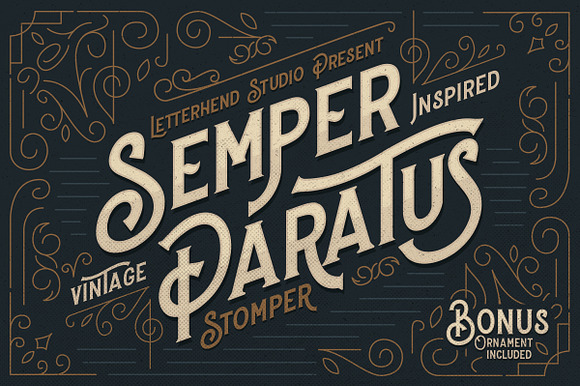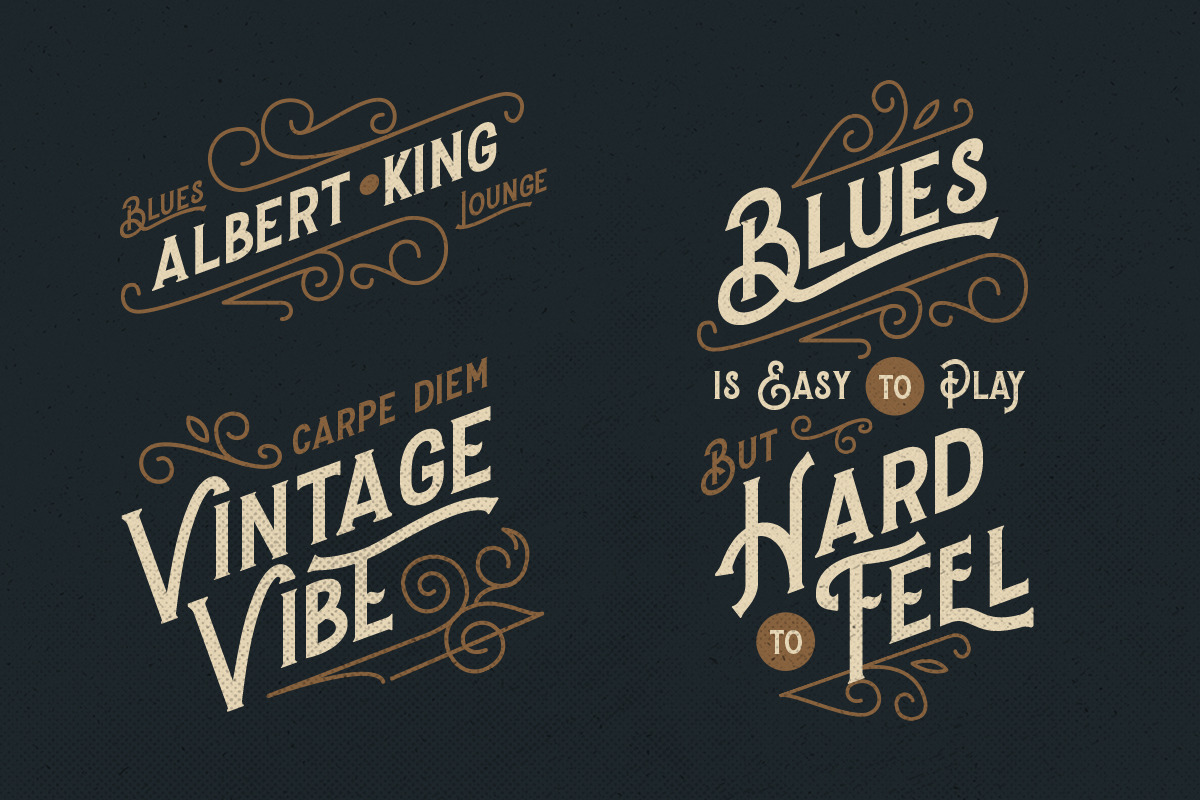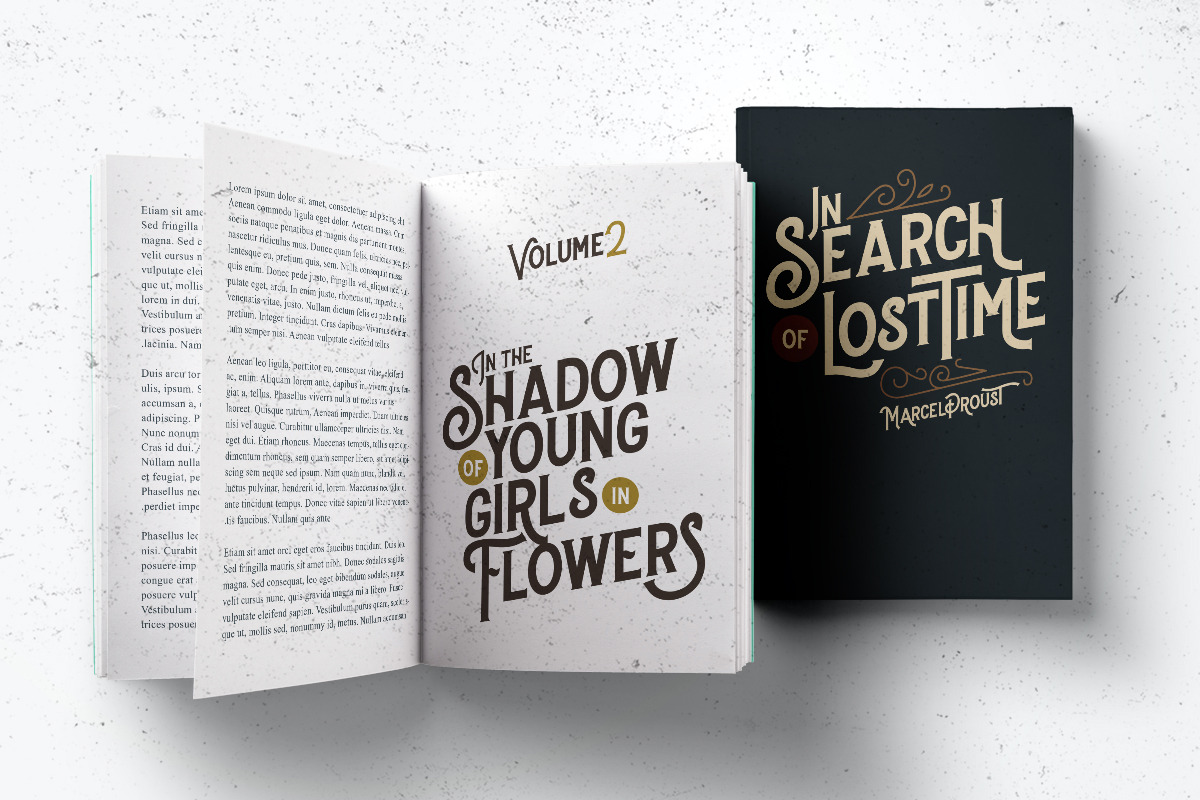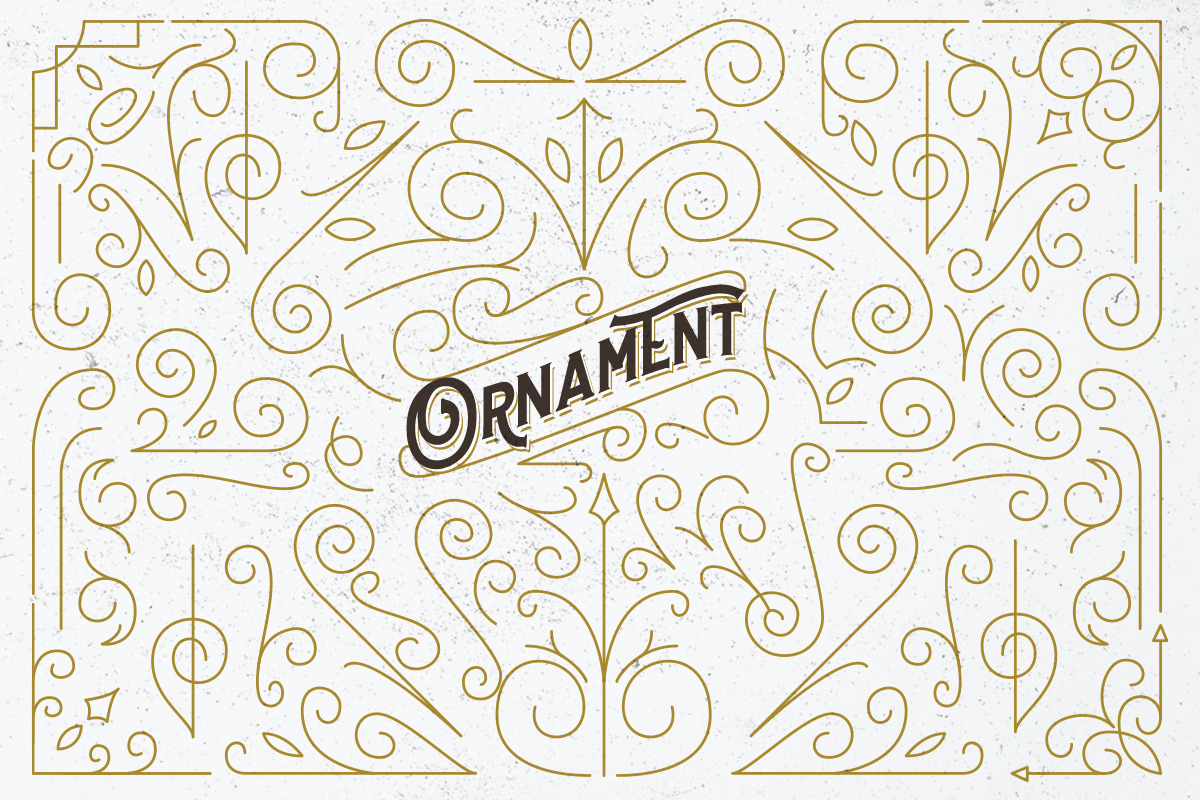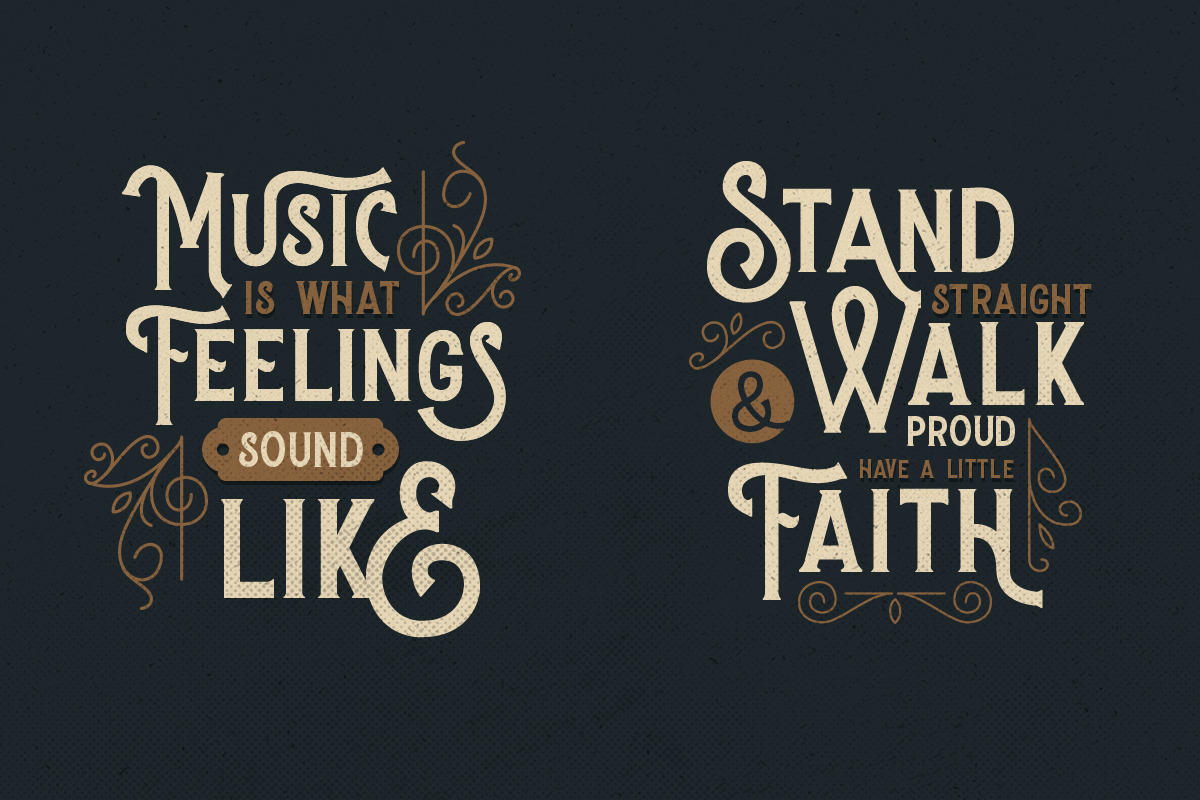
Stomper - A Vintage Display Font
Stomper is a display typeface with a vintage feel. The complementary ornament fits very well with the style of the font itself. Suitable for you who needs a typeface for headline, logotype, apparel, invitation, branding, packaging, advertising etc. This typeface is comes in uppercase, lowercase, punctuations, symbols & numerals, stylistic set alternate, ligatures, etc also support multilingual and already PUA encoded.